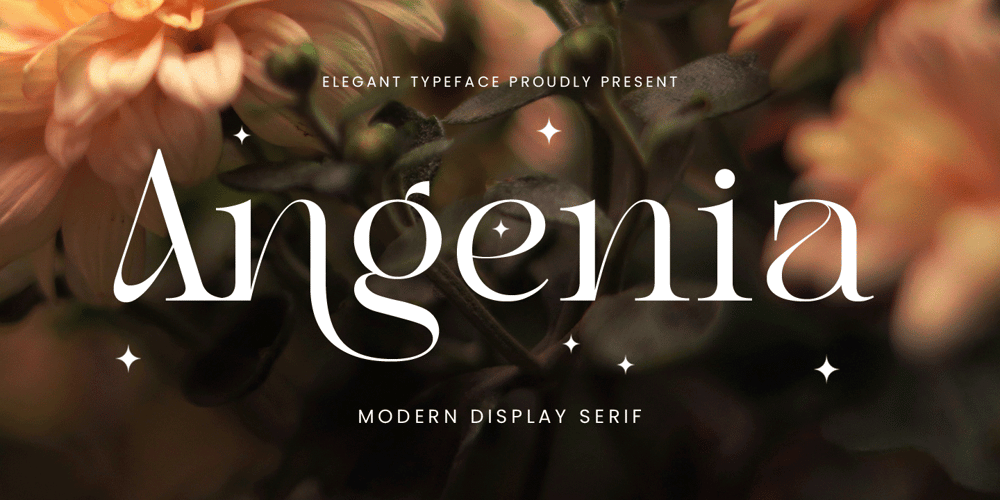
Angenia
Angenia font
Angenia Font Family was designed by Novitasari Romli and published by Novitype. Angenia contains 1 styles and family package options. Give a touch of beauty to your designs with Agenia, a casual serif font that provides a unique and modern style. This font is enriched with dozens of ligatures and alternate characters which will add a delightful touch and ensure your creations stand out. Ideal for diverse applications, including fashion, weddings, cards, editorial/magazines, logos, branding, and moreAgenia presents a fashionable, clean, and minimalist serif design, making it a versatile choice for pairing with other fonts such as sans serif, cursive, or signature styles. Its slender form allows seamless integration into various elements like titles, sub-headings, or body text.Fonts features: Upper case Lower case Numbers & punctuations Symbols Stylistic alternates Ligatures Accented characters.